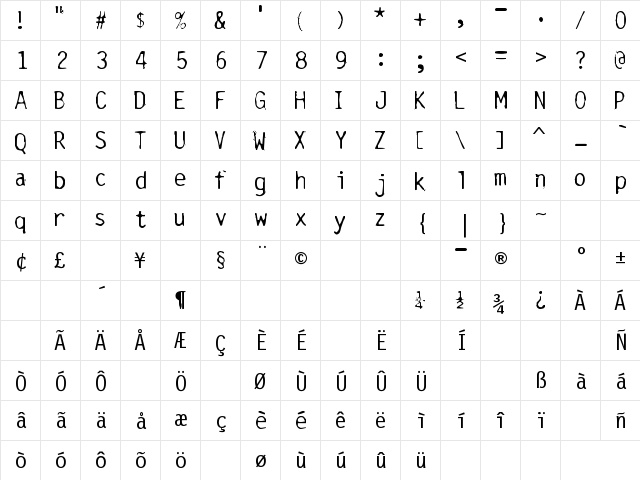
Prova Regular
Design Context for Prova Typeface
Prova takes a measured approach to typography — its balanced proportions and neutral character make it a reliable workhorse for both digital and print work.
Pro Tip: Use Prova in both headline and body roles to test its range before committing to a single application.